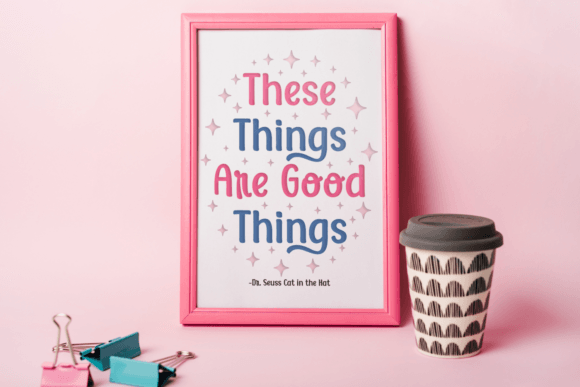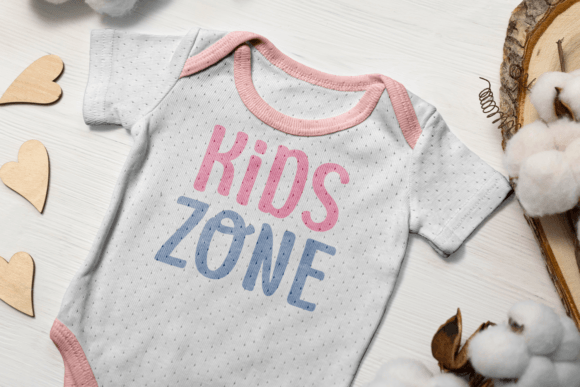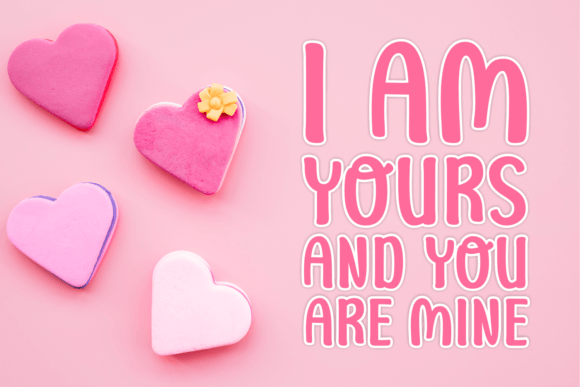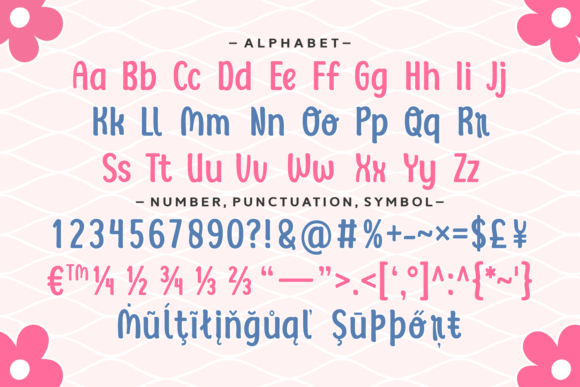
Introducing Funny World Font: The Ultimate Choice for Whimsical Designs
Are you tired of using the same old fonts in your designs? Do you want to add a touch of playfulness and quirkiness to your projects? Look no further than the Funny World font! Designed to charm and delight, this endearing display font is perfect for cartoon-centric designs, children’s games, and any project that requires a dash of cuteness or a sprinkle of sweet.
The Perfect Fit for Whimsical Designs
Funny World font is a gem that brilliantly encapsulates whimsy and quirkiness, making it an extraordinary choice for designers and crafters. Its unique and playful typeface is sure to capture the attention of your audience and leave a lasting impression. Whether you’re creating a children’s book, a cartoon, or a game, this font is the perfect fit for adding a playful vibe to your design.
Key Features of Funny World Font
- Unique and Playful Typeface: Funny World font boasts a one-of-a-kind design that’s sure to stand out from the crowd.
- Whimsical and Quirky: This font is perfect for designers who want to add a touch of whimsy and quirkiness to their projects.
- Perfect for Cartoon-Centric Designs: Funny World font is a great choice for cartoon-centric designs, children’s games, and any project that requires a playful vibe.
- Easy to Read: Despite its playful design, Funny World font is easy to read, making it perfect for use in a variety of projects.
Why Choose Funny World Font?
So, why choose Funny World font over other fonts? Here are just a few reasons:
- Adds a Touch of Personality: Funny World font adds a touch of personality to your designs, making them more engaging and memorable.
- Versatile: This font can be used in a variety of projects, from children’s books to games and cartoons.
- High-Quality Design: Funny World font is designed with high-quality in mind, ensuring that your projects look professional and polished.
How to Use Funny World Font
- Use it in Headings and Titles: Use Funny World font in headings and titles to add a touch of playfulness and whimsy.
| Font Name | Funny World Font |
| Author | Riman (7NTypes) |
In conclusion, Funny World font is an extraordinary choice for designers and crafters who want to add a touch of whimsy and quirkiness to their projects. Its unique and playful typeface, versatility, and high-quality design make it perfect for a variety of projects, from children’s books to games and cartoons. So why settle for boring fonts when you can add a dash of cuteness or a sprinkle of sweet to your designs with Funny World font?